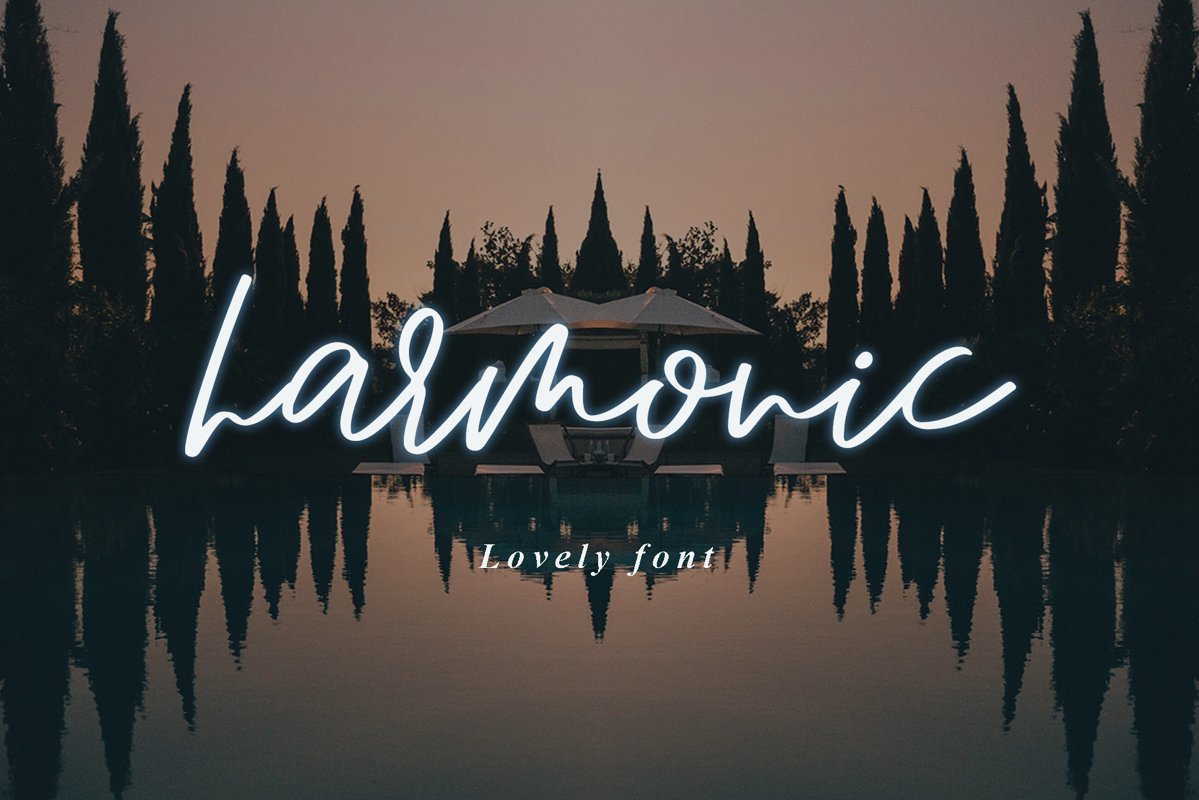
Harmonic
Harmonic is a unique, lovely and modern handwritten script. It's hand look style makes it perfect for use in all your design projects be it logos, signatures, labels, packaging design, blog headlines.